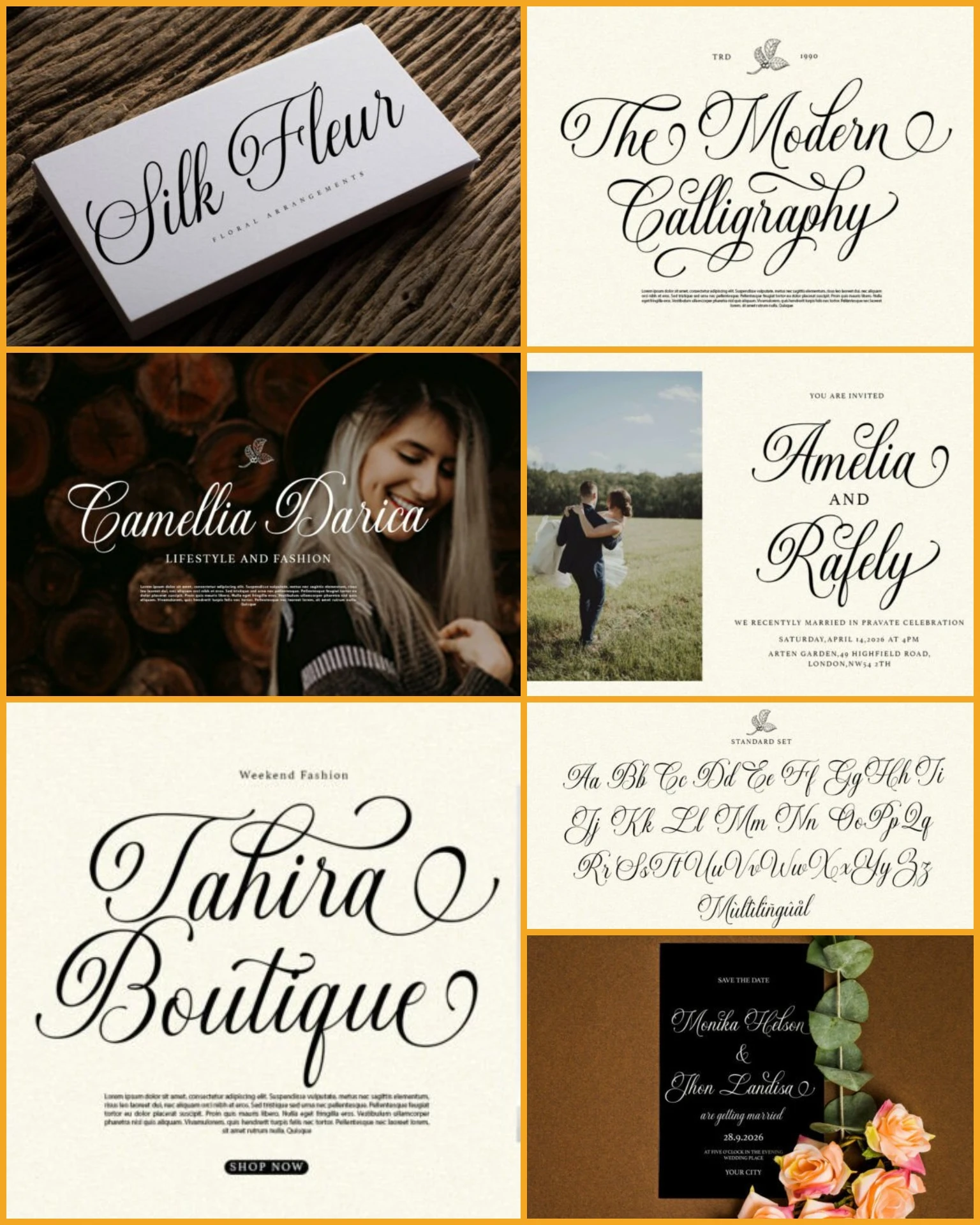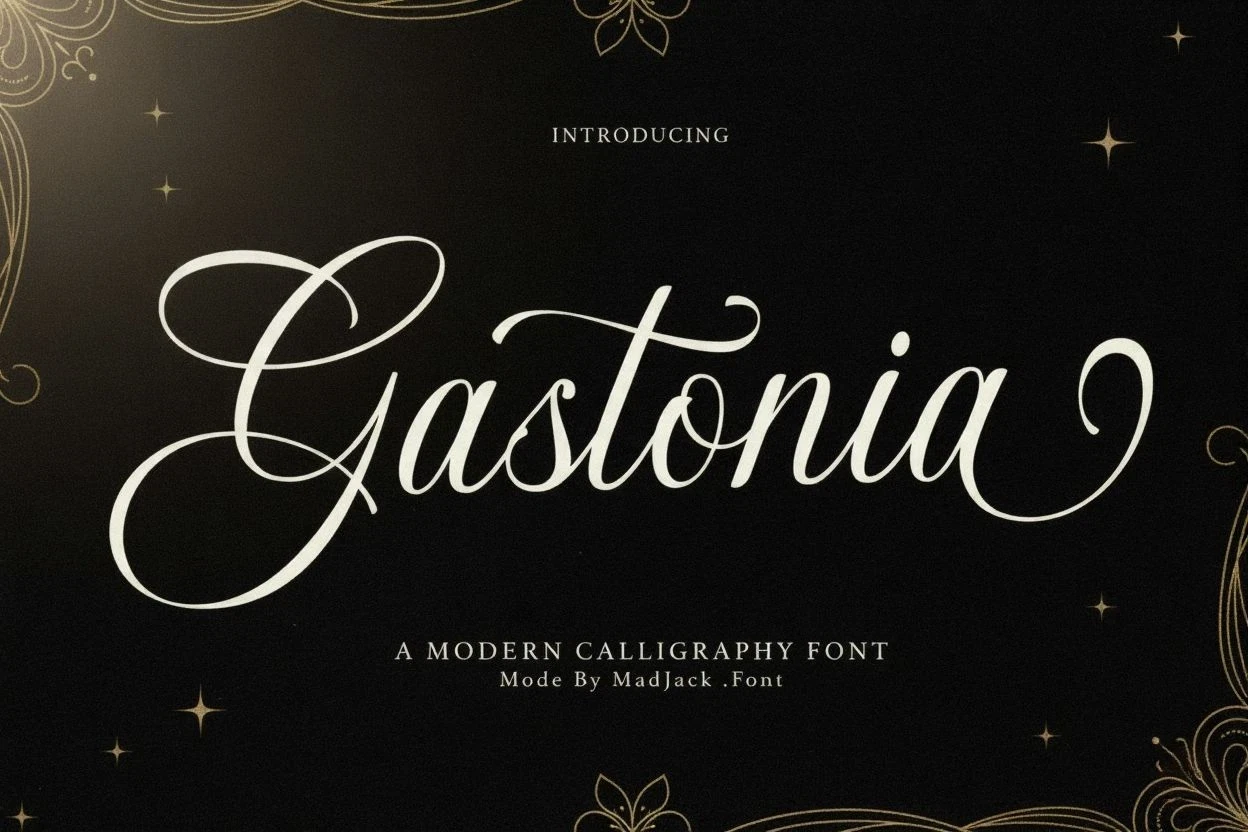
Gastonia – Elegant Calligraphy & Modern Script Font
Gastonia is an elegant calligraphy and modern script font — perfect for weddings, branding, packaging, and high-end creative designs.
Gastonia Script is a modern calligraphy font that brings a touch of luxury to your designs. Its flowing lines and curves add romance and sophistication. This font works well for weddings, branding, packaging, invites, and upscale publications. Gastonia gives your work beauty and a pro feel, a great choice for designers who appreciate class and creativity.
A collage of elegant calligraphy fonts showcasing their use in branding, invitations and design — from flowing «Silk Fleur» to bold «Amelia and Rafely», from stylish «Camellia Darica» to dramatic «Tahira Boutique». Demonstrates versatility of script styles for fashion, events and creative projects.